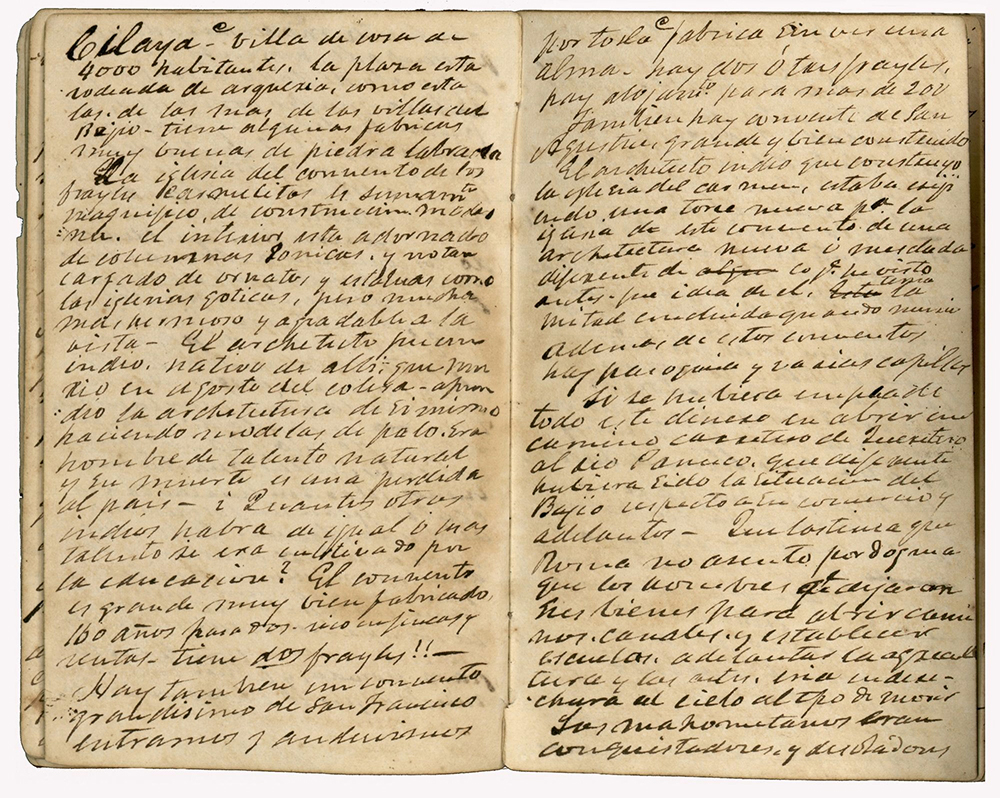
A letter: intimacy by hand
An envelope from my father as a young man, handwritten intimacy in a keepsake.
Envelope containing a letter home
from my father as a young man
Having received a particularly thoughtful gift over the holidays, I picked up a pen, wrote a thank-you note, put it in an envelope, and dropped it in the mail. Only afterward did I realize it was the first handwritten letter I’d produced in a long, long time. I’ve written daily for many years, but these days I do it on a laptop keyboard. Nearly everything I write is digital: email, PMs, digital documents I can print out and send by the U.S. Mail. My handwriting has badly suffered for lack of practice.
Soon after I composed that note, I read about a family who nearly lost four decades of valued personal correspondence. (The story has a happy ending. And, yet again, I got to thinking about what we’ve lost with the decline of the habit of putting pen to paper.
I’ve written here about the thrill a person gets to recognize the handwriting of a loved one on, say, an envelope. Yet in these digital, online days, cursive script is no longer a core curriculum in schools. My guess is a new generation has trouble even deciphering cursive. No doubt kids still pass notes in class, and recognizing familiar hand-printing can certainly engender an emotional response. But what percentage of us actually bother to write a letter by hand anymore, cursive or no?
Losses to mourn
An envelope for a letter written by Daniel Ruggles to his wife in 1848, handwritten intimacy.
Addressed envelope for a letter written
by Daniel Ruggles to his wife in 1848
In thinking about my thank-you note, it struck me that there’s plenty more losses to mourn—beyond simply the thrill of recognition. Chief among them: a sense of intimacy.
To write a letter, a person must first feel a sense of urgency, a desire or obligation to communicate with another person too far away to talk to, when a phone call simply will not do. Letter-writers must then choose paper and a pen, make time to sit at a desk or table or subway car, compose mental sentences, and transfer those sentences via pen to page. They must have the address of the recipient handy (maybe know it by heart), likely have to fold the paper, might even have to lick the flap of the envelope before sliding it into a mail slot. The process involves lot of decisions, and a lot of touching (the pen, the paper, the envelope). Assuming the letter reaches its recipient, the results of all those motions appear in an actual physical object—one that might even get passed down through generations. As used to happen back when we bothered to go through the motions.
Intimacy by hand
An excerpt from 1779 letter by John Paul Jones is far more intimate than a typewritten page.
Excerpt from 1779 letter
by John Paul Jones
The intimacy of an old handwritten letter, seems to me, surpasses even a photo of a lost loved one. It surpasses the intimacy of a handkerchief or tool or hairbrush belonging to a historical figure. Consider a signature— an important, personal, persistent creation by someone wielding a pen. But a letter goes further—comprises thoughts, observations, stories, communication. It might contain good or bad news, words of love or aggravation—emotions that often come right through.
The font I’m currently working on replicates the penmanship of John Paul Jones (1747–1792). Among the source material I’m consulting you’ll find a letter, dated 11 November 1779, to M.J. Luzac, editor of the Gazette de Leyde. Its first sentence:
“It gives me great Pain to see that the translation which has appeared in your Gazette of the extract of my Journal is preceeded [sic] by an Observation which leaves room to suppose that it has been my intention to augment the merits of my Own Services by diminishing those of others.”
(Despite his long, careful, polite language, clearly Jones is pissed.)
Such clear, evocative sentences written centuries ago become much improved when seen written by the hands of the original authors, on paper they’ve chosen, closed with signatures that belong only to them. You can imagine the writing table, the inkwell, the oil lamp, the sealing wax. The words rise as intimate as whispers—far more considered and precise than remarks made during casual conversation. It strengthens the feeling that you’re catching a glimpse of the contents of the writer’s mind.